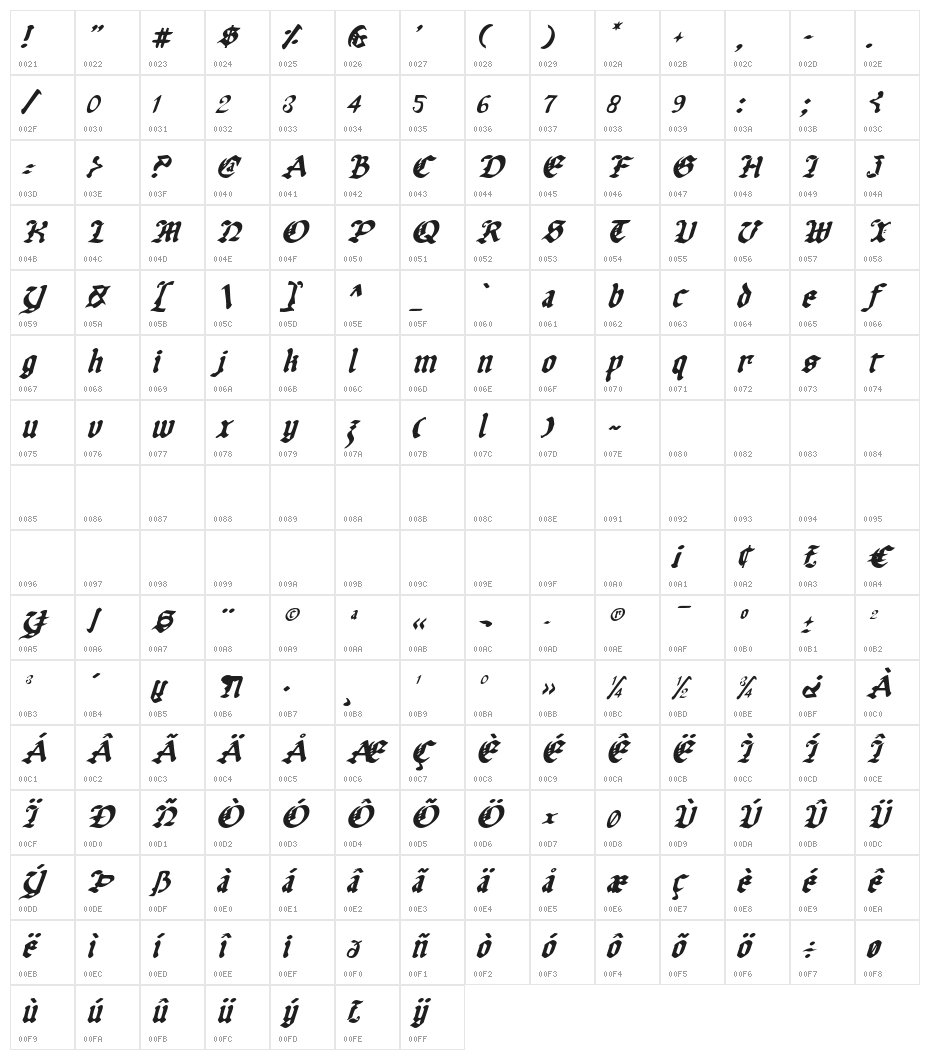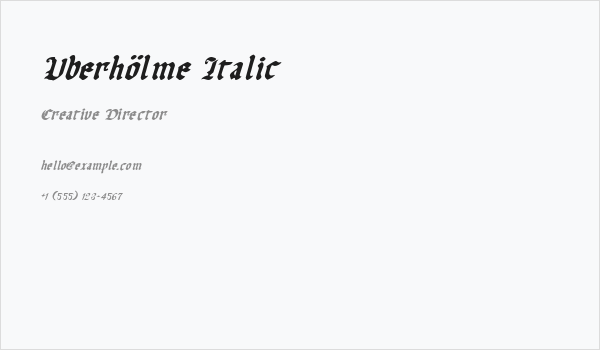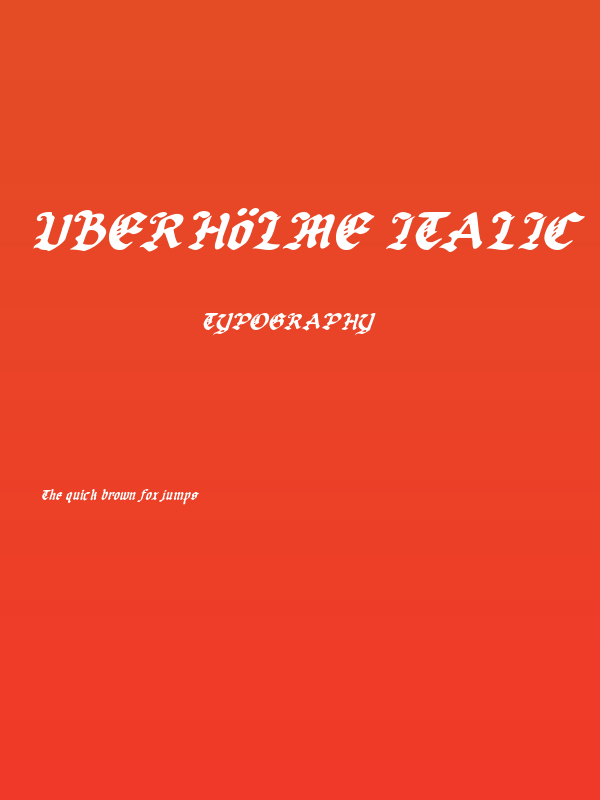
Uberhölme Italic Font
Uberhölme Italic Description
This font features a bold, italicized blackletter style with sharp, angular strokes and a distinct medieval aesthetic. The uppercase letters are ornate and commanding, while the lowercase letters maintain a consistent flow with a slightly condensed appearance. The numerals are equally stylized, matching the overall gothic theme. Special characters are designed to complement the dramatic flair of the alphabet, making this font suitable for impactful and decorative uses.
| Proposed Projects | Ideal for projects requiring a historical or gothic touch, such as themed event invitations, book covers for fantasy novels, or branding for vintage-inspired products. |